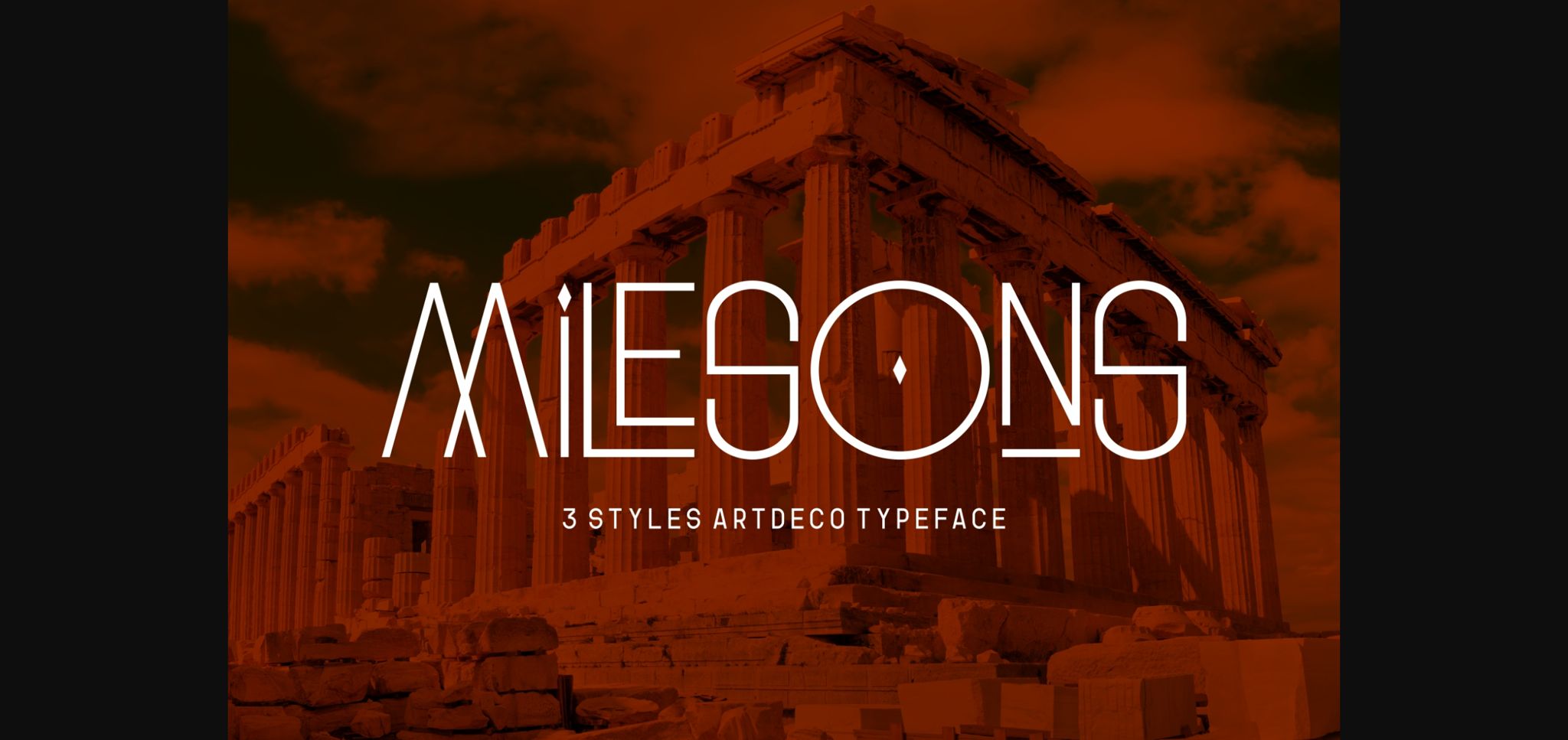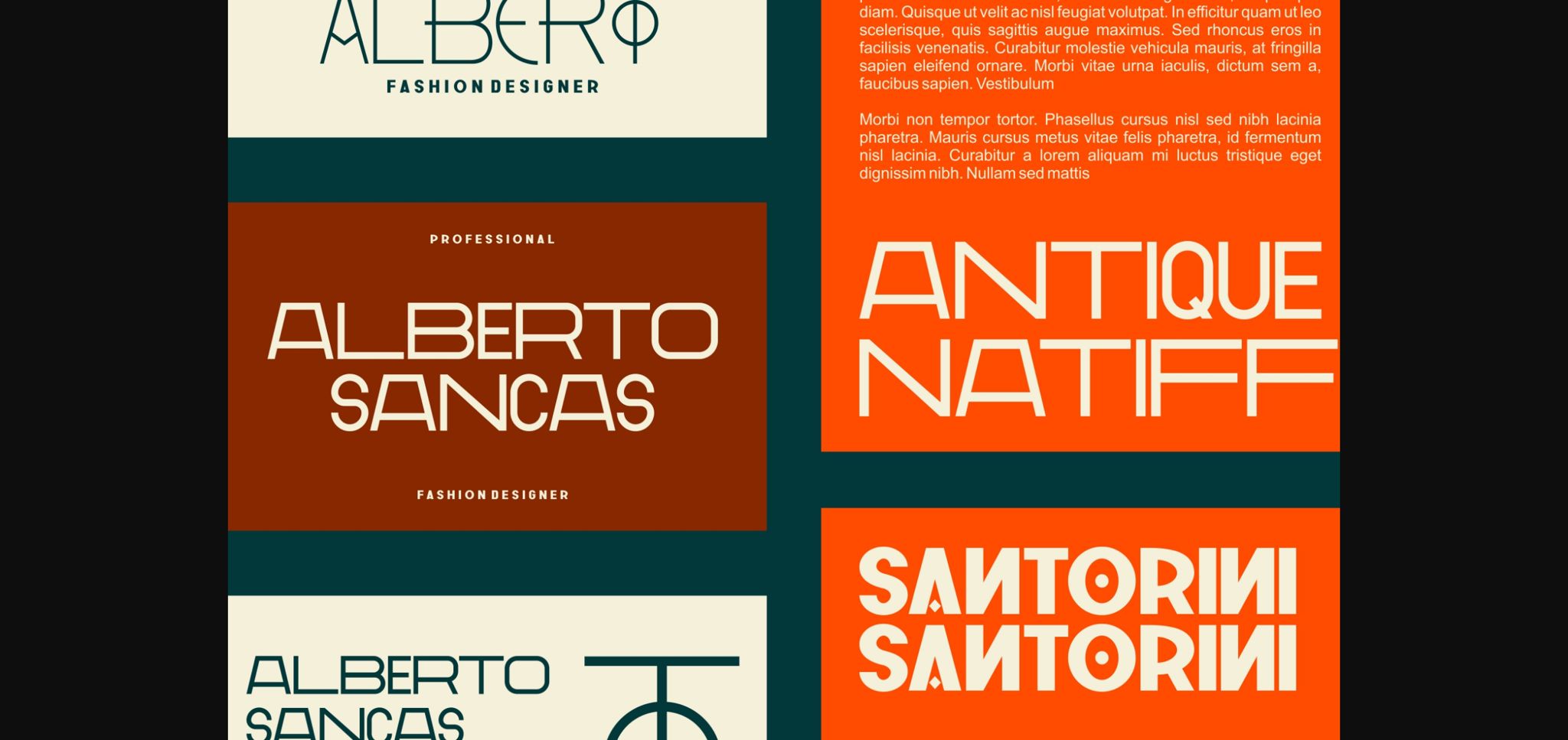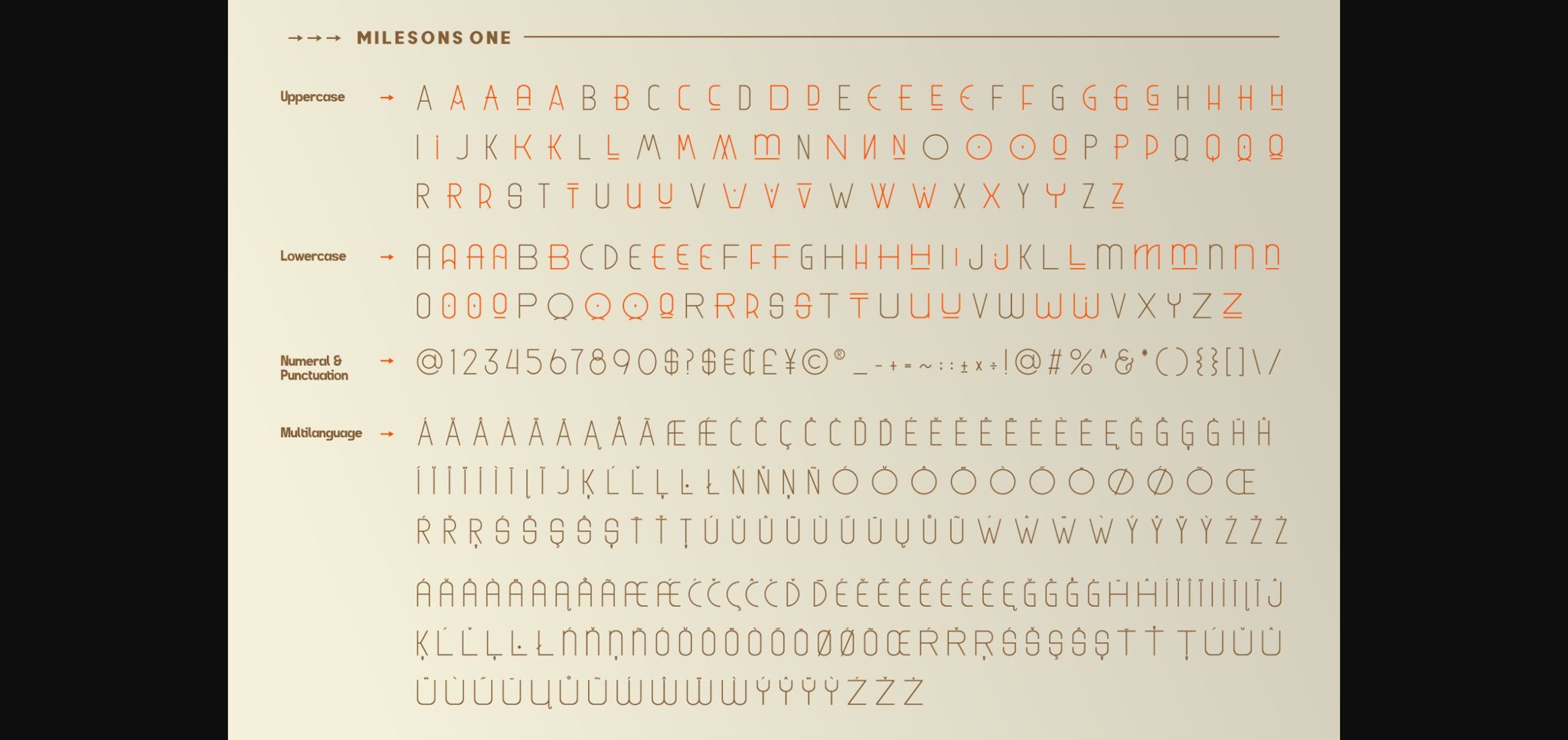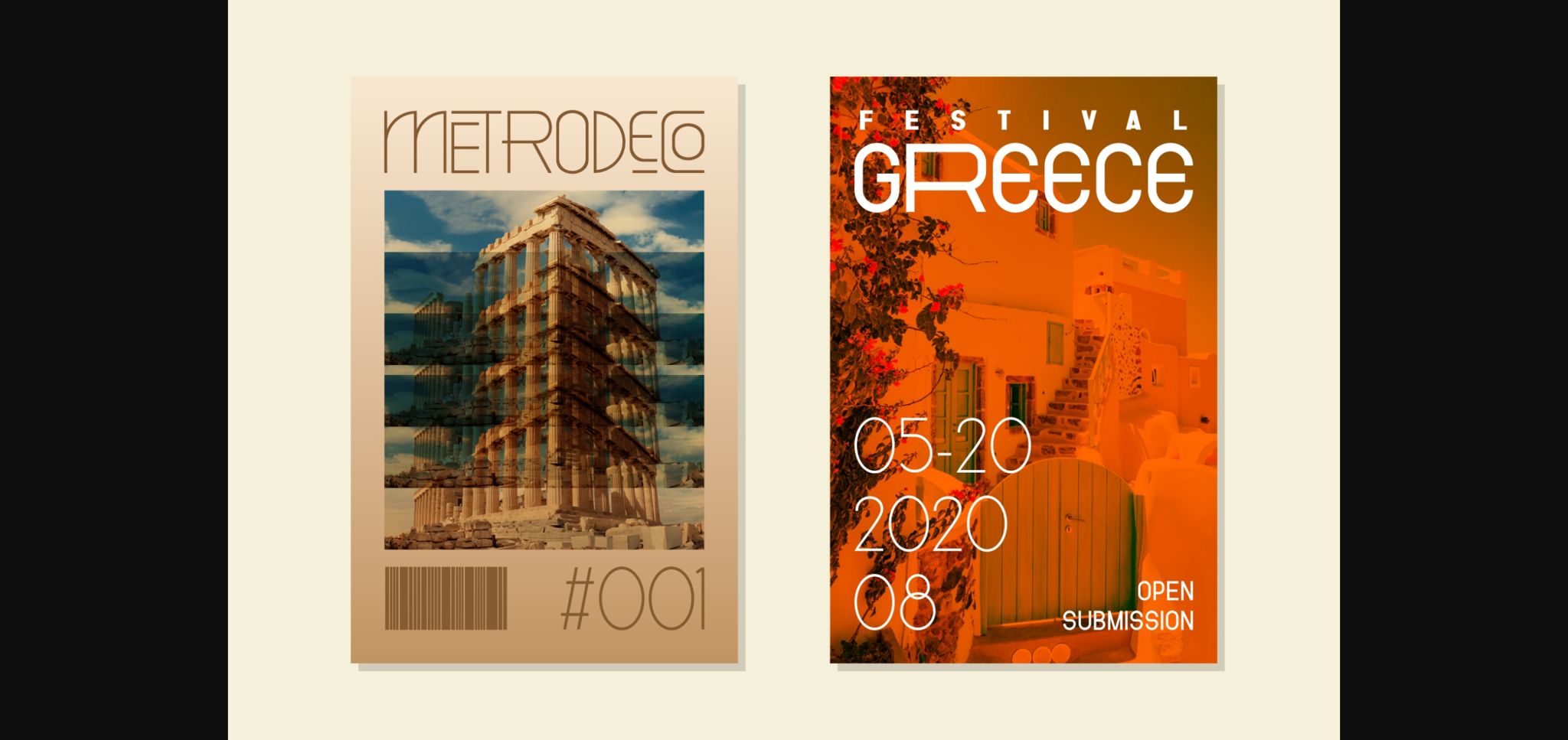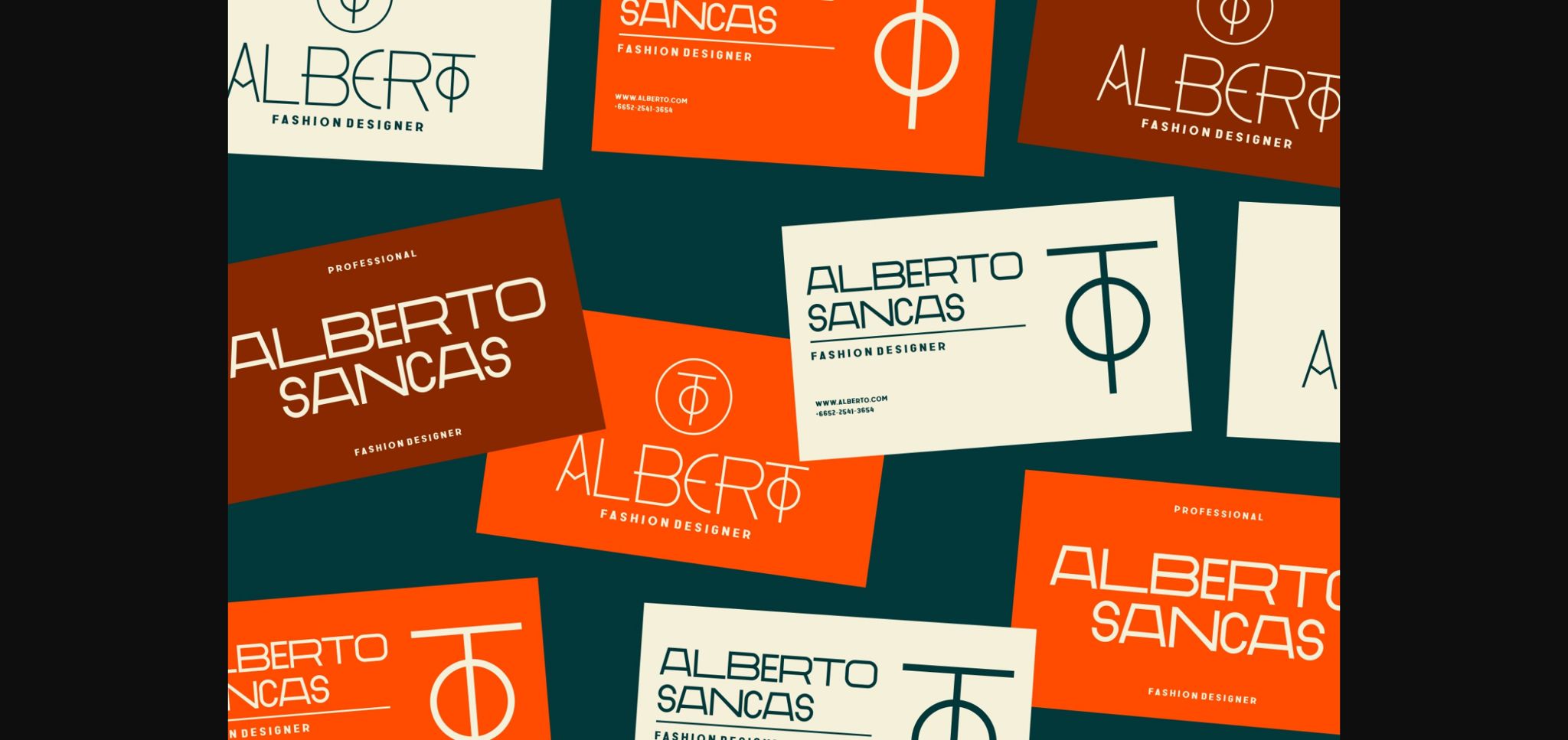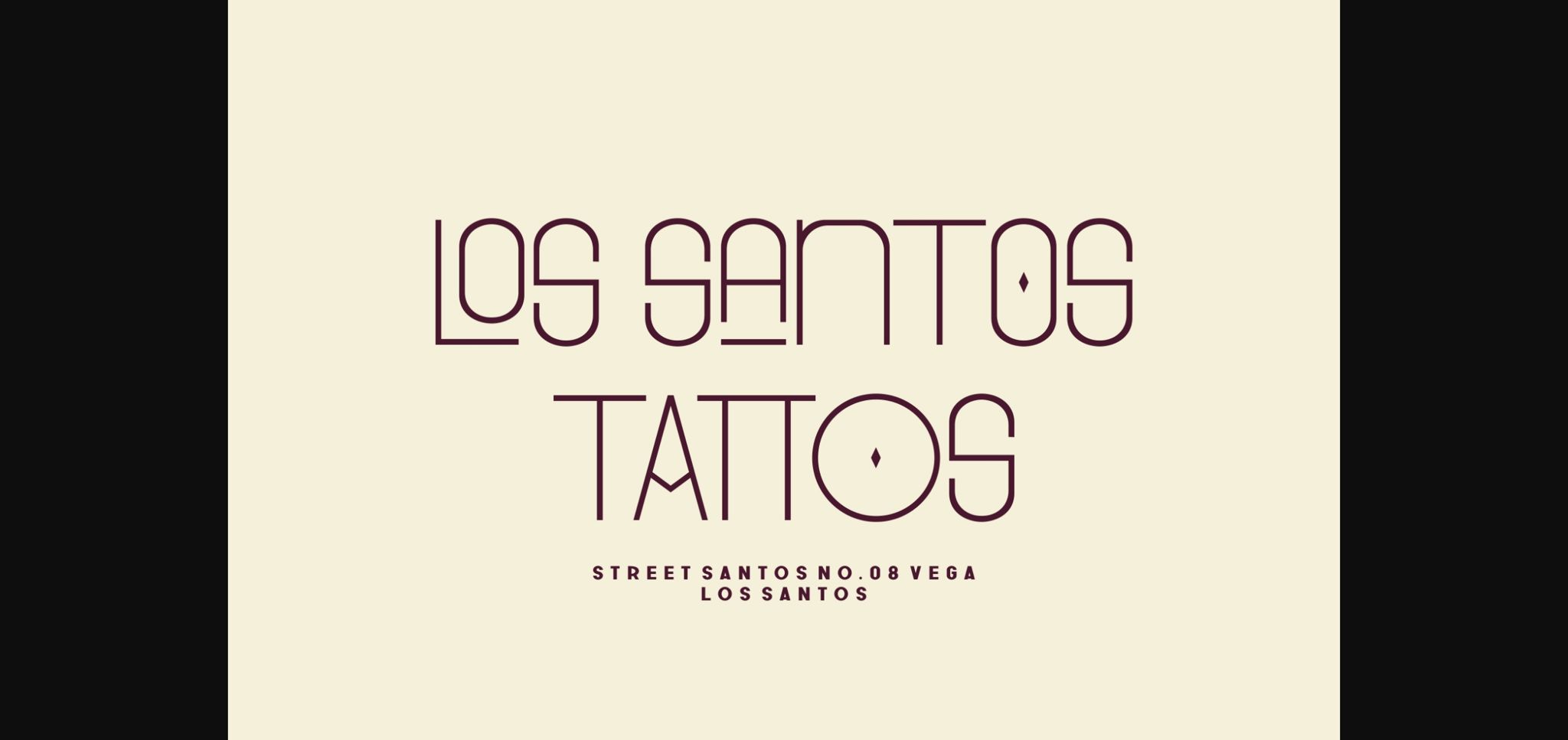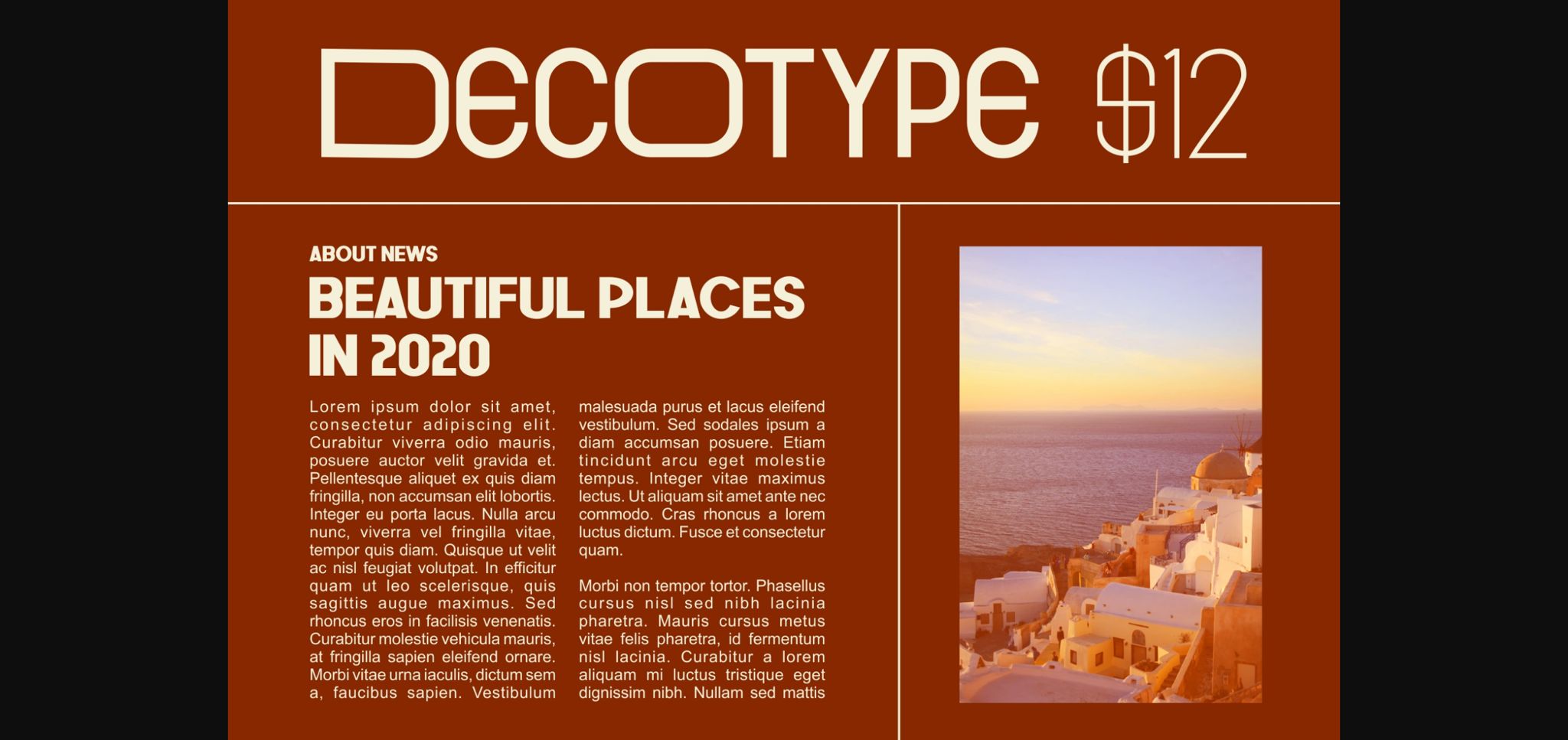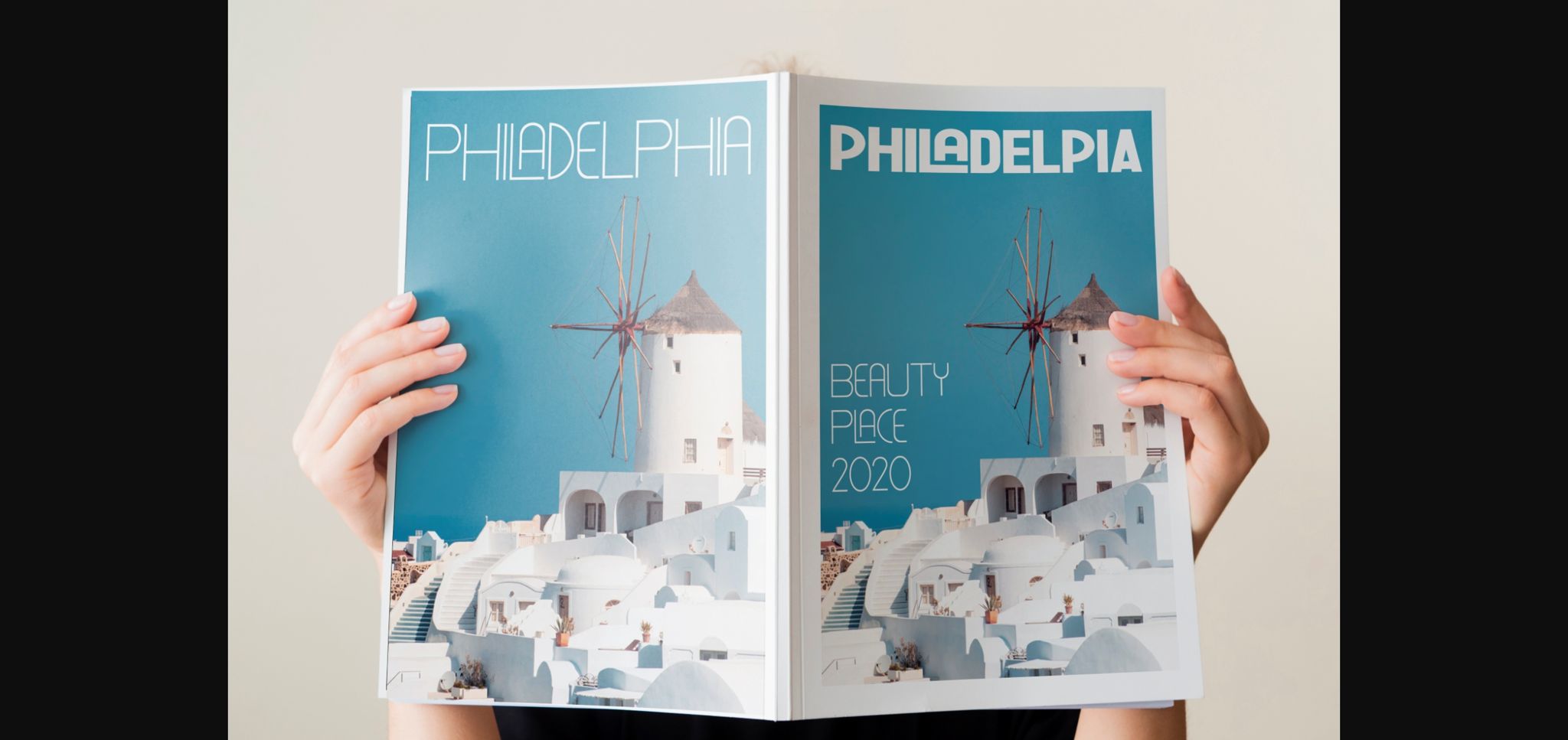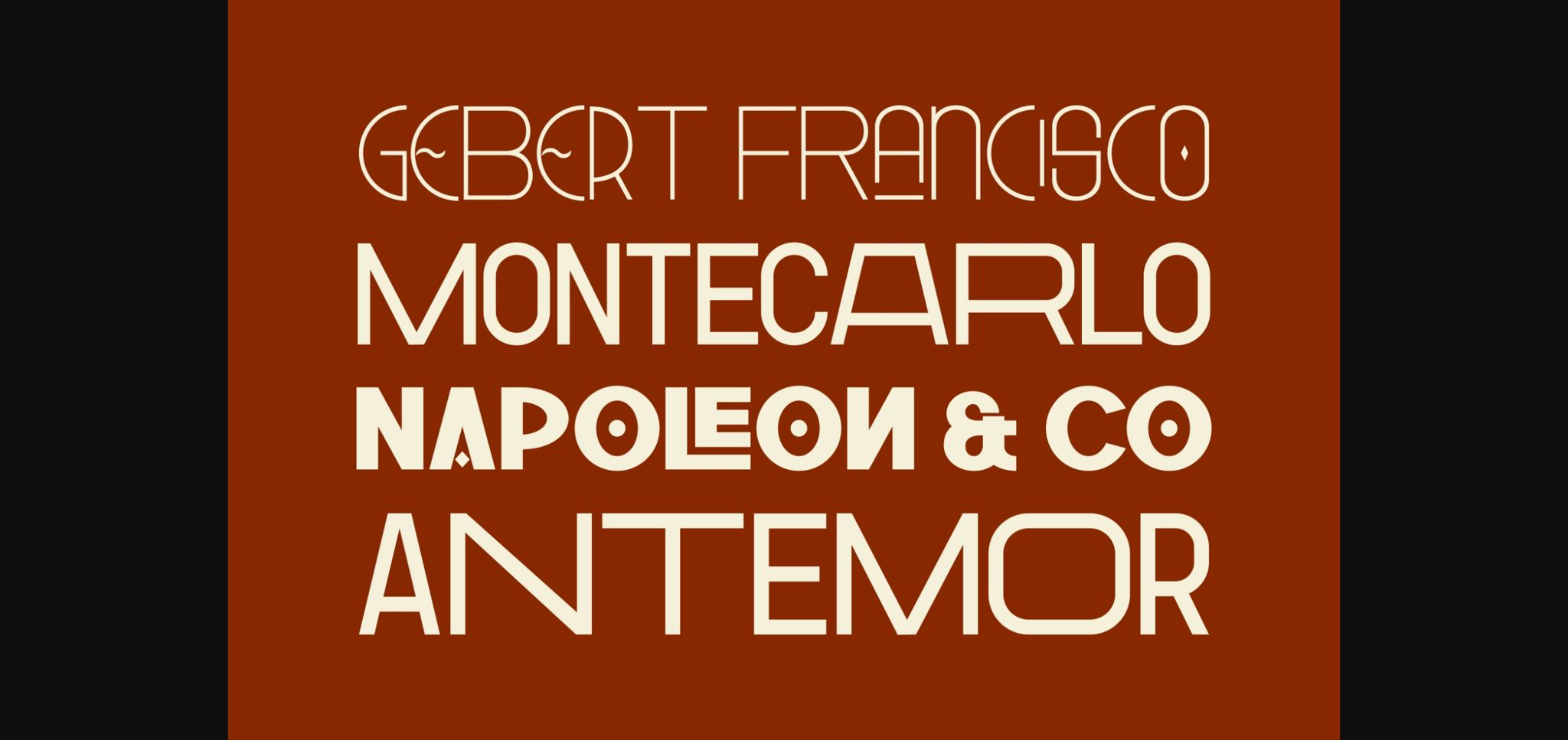
HomeSans Serif FontsMilesons Font Sans Serif Fonts Milesons Font FacebookXPinterestWhatsApp 1 of 11 ... Milesons Font Poster 2... Milesons Font Poster 3... Milesons Font Poster 4... Milesons Font Poster 5... Milesons Font Poster 6... Milesons Font Poster 7... Milesons Font Poster 8... Milesons Font Poster 9... Milesons Font Poster 10... Milesons Font Poster 11... About Milesons Font Milesons is a simple and minimalist sans serif font. It is suitable to a wide range of graphic design projects, prints, logos, posters, t-shirts, packaging and much more! DOWNLOAD NOW People also explored Dandelion Greens Font Paula Natalie Font Homin Fun Font Hidestix Font Valentaines Moment Font Starnight Font Bloods Spearing Font Dalek Pinpoint Zigas Font 381 0 TagsMilesons Font Previous articleVerbhanna FontNext articleDensa Family Font LEAVE A REPLY Cancel reply Comment: Please enter your comment! Name:* Please enter your name here Email:* You have entered an incorrect email address! Please enter your email address here Website: Save my name, email, and website in this browser for the next time I comment. Personal Use Free Boldist Personal Use Free Read more about this font Zephan Personal Use Free Read more about this font Glosery Personal Use Free Read more about this font Bukhari Script Personal Use Free Read more about this font BLOG 5 Fonts That Will Dominate Design Trends in 2026 5 Fonts for 2026 That Will Dominate Design Trends Typography plays a critical role in visual communication, and as we look ahead to 2026, it’s... Top 10 Handwritten Fonts That Elevate Your Designs Using Fonts in Digital Marketing: Tips to Strengthen Your Brand Identity Fonts That Capture the Spirit of New York City